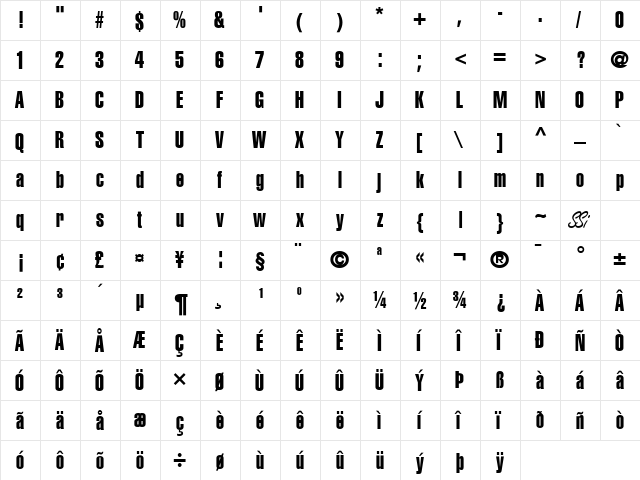
Context Extra Condensed SSi Extra Condensed
Design Context for Context Extra Condensed SSi Typeface
Context Extra Condensed SSi takes a measured approach to typography — its balanced proportions and neutral character make it a reliable workhorse for both digital and print work. Its narrow stance lets it pack a punch even in space-constrained designs.